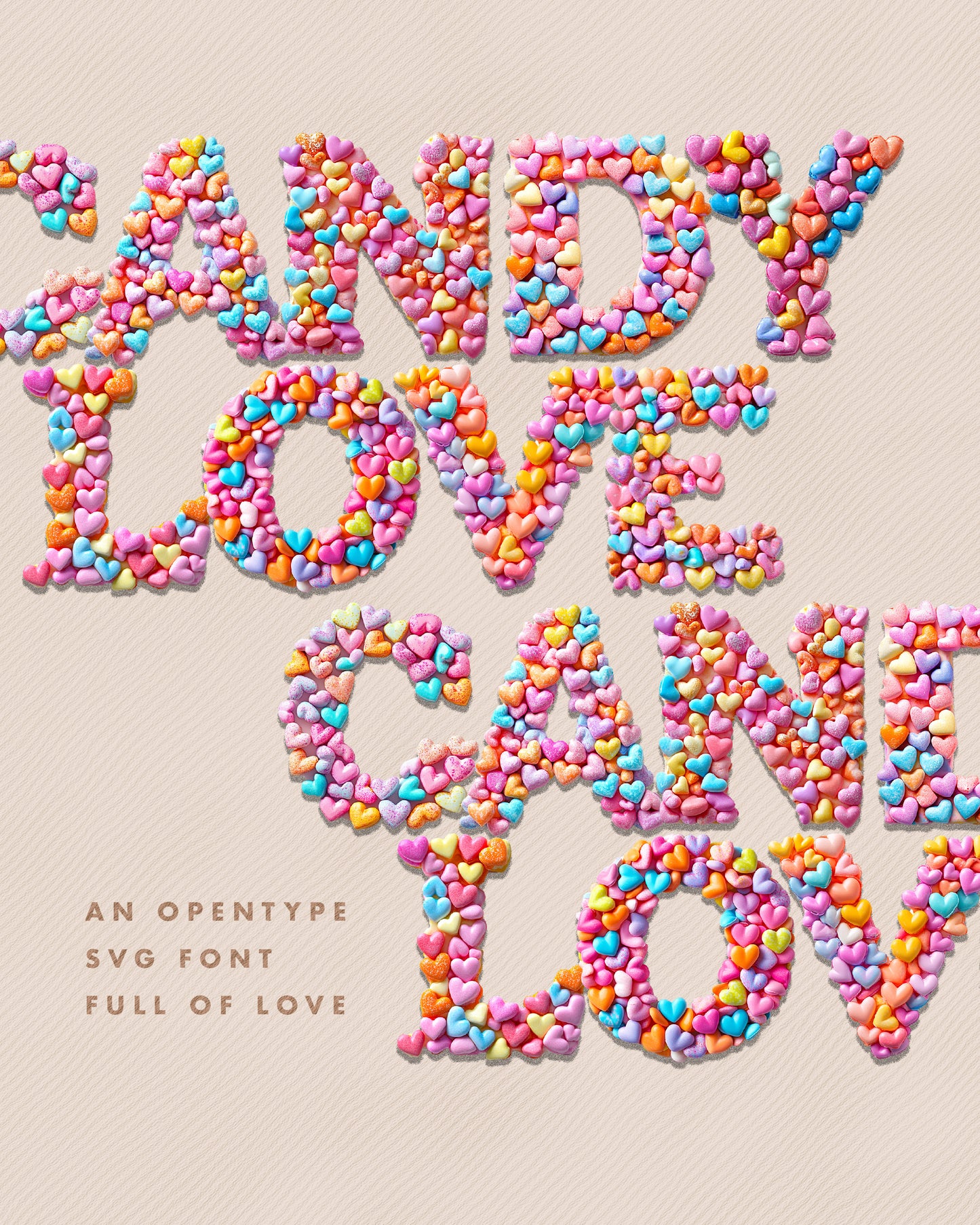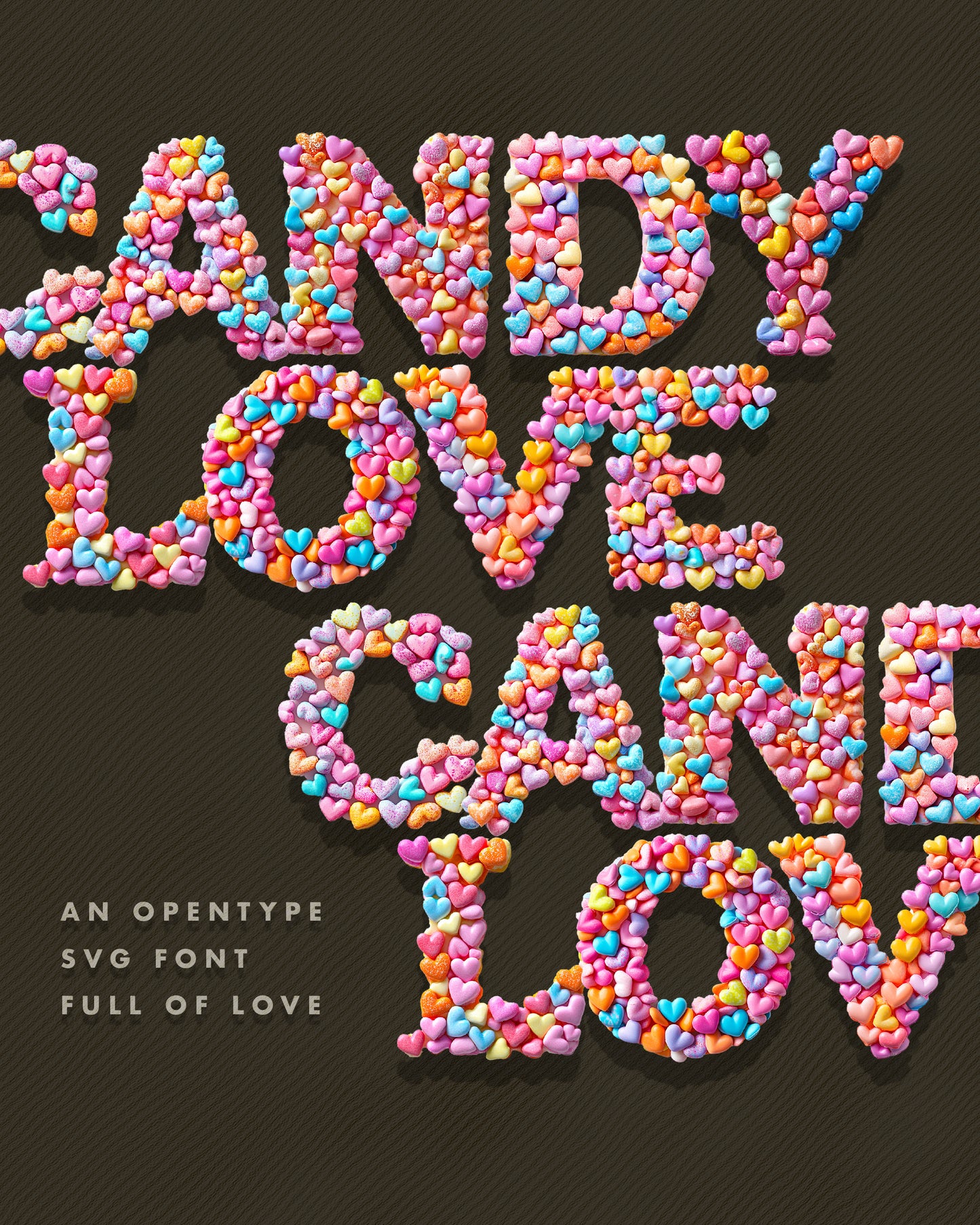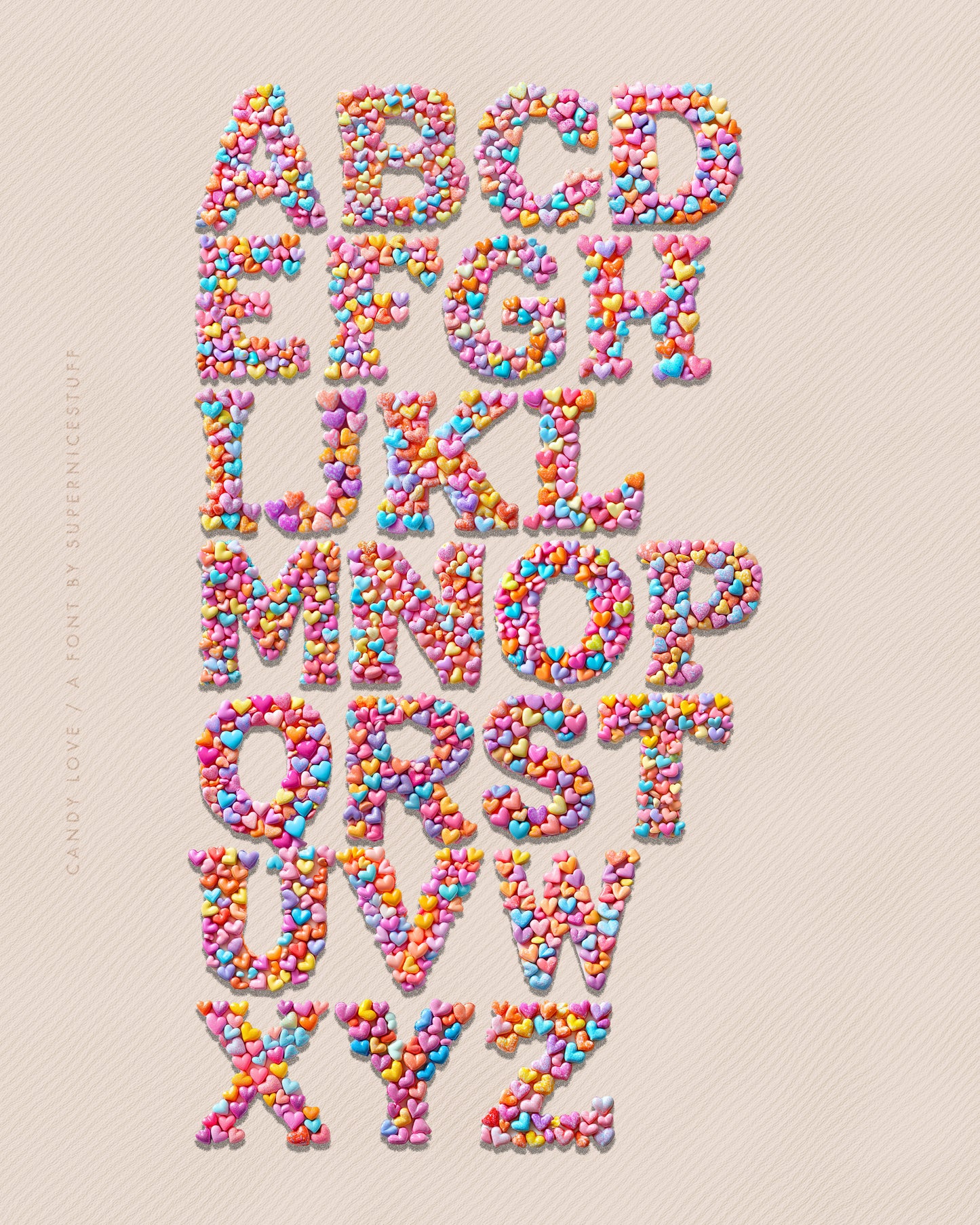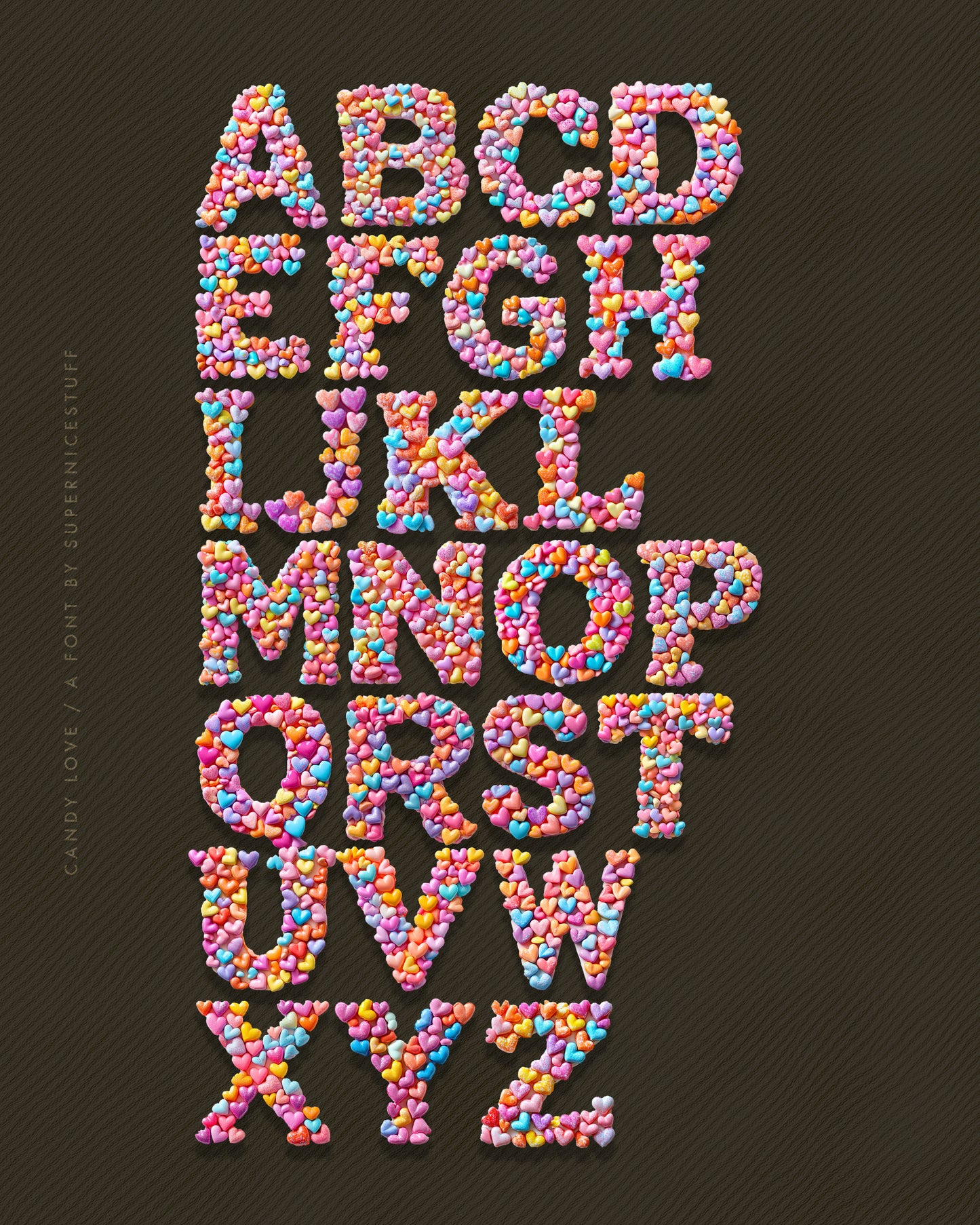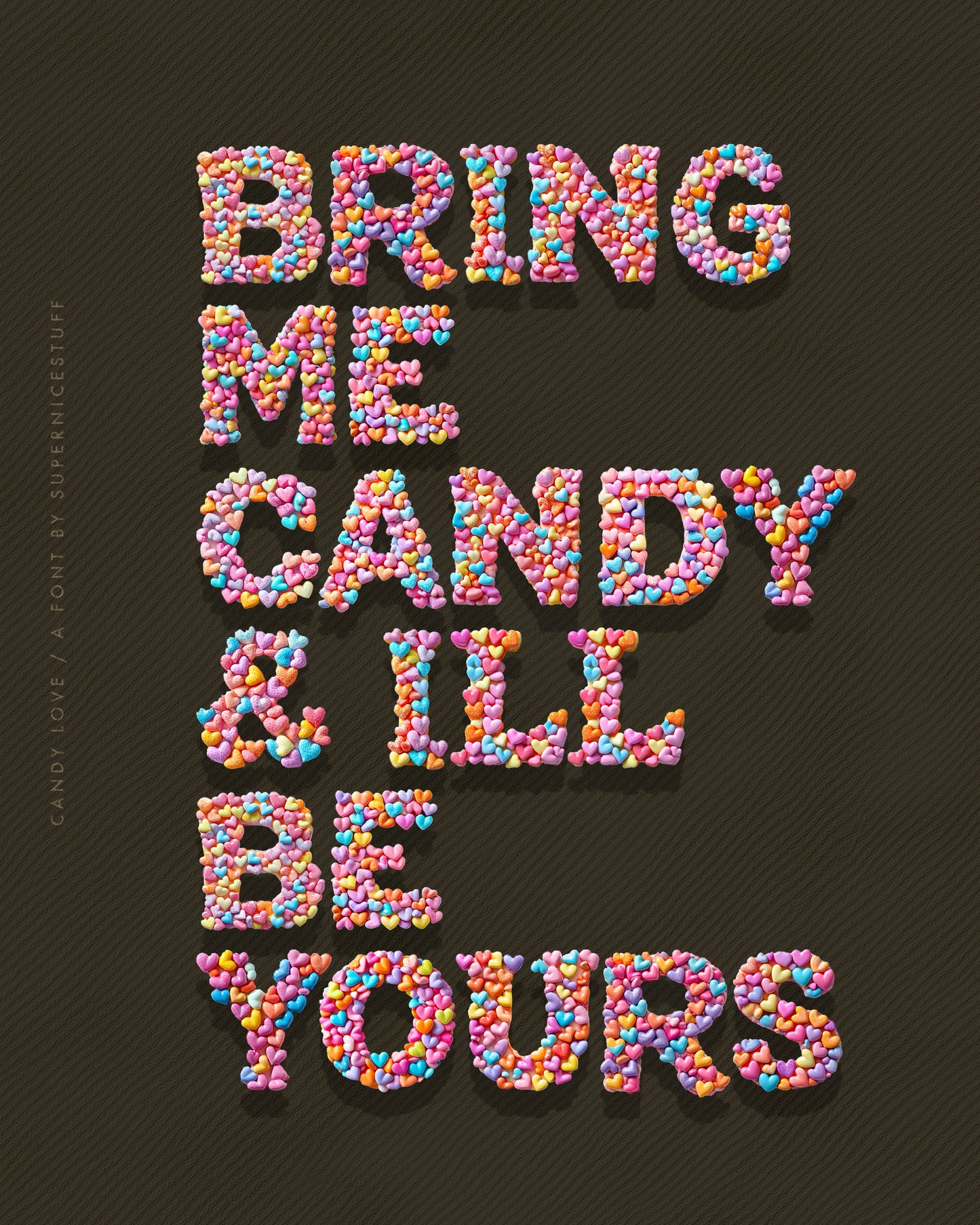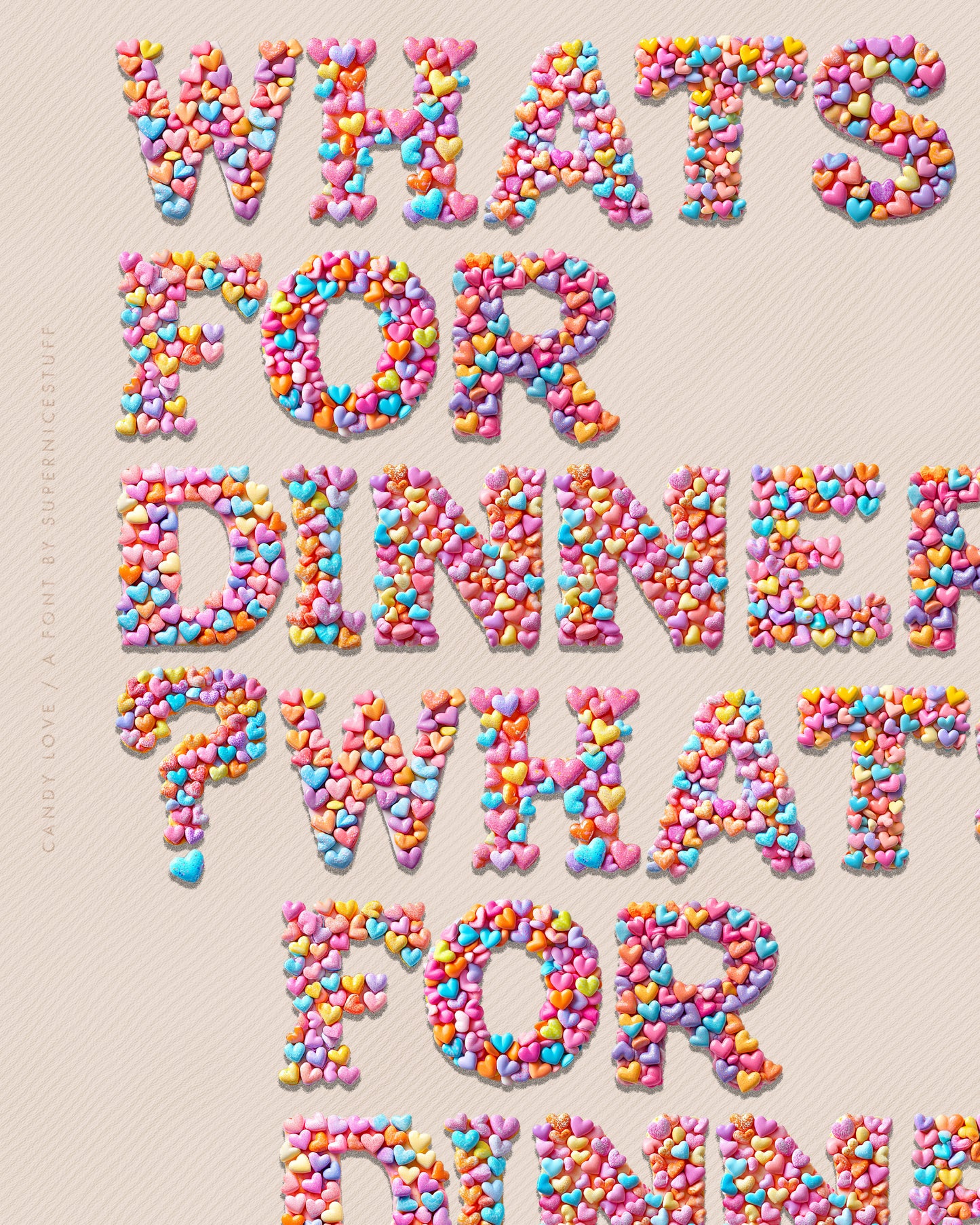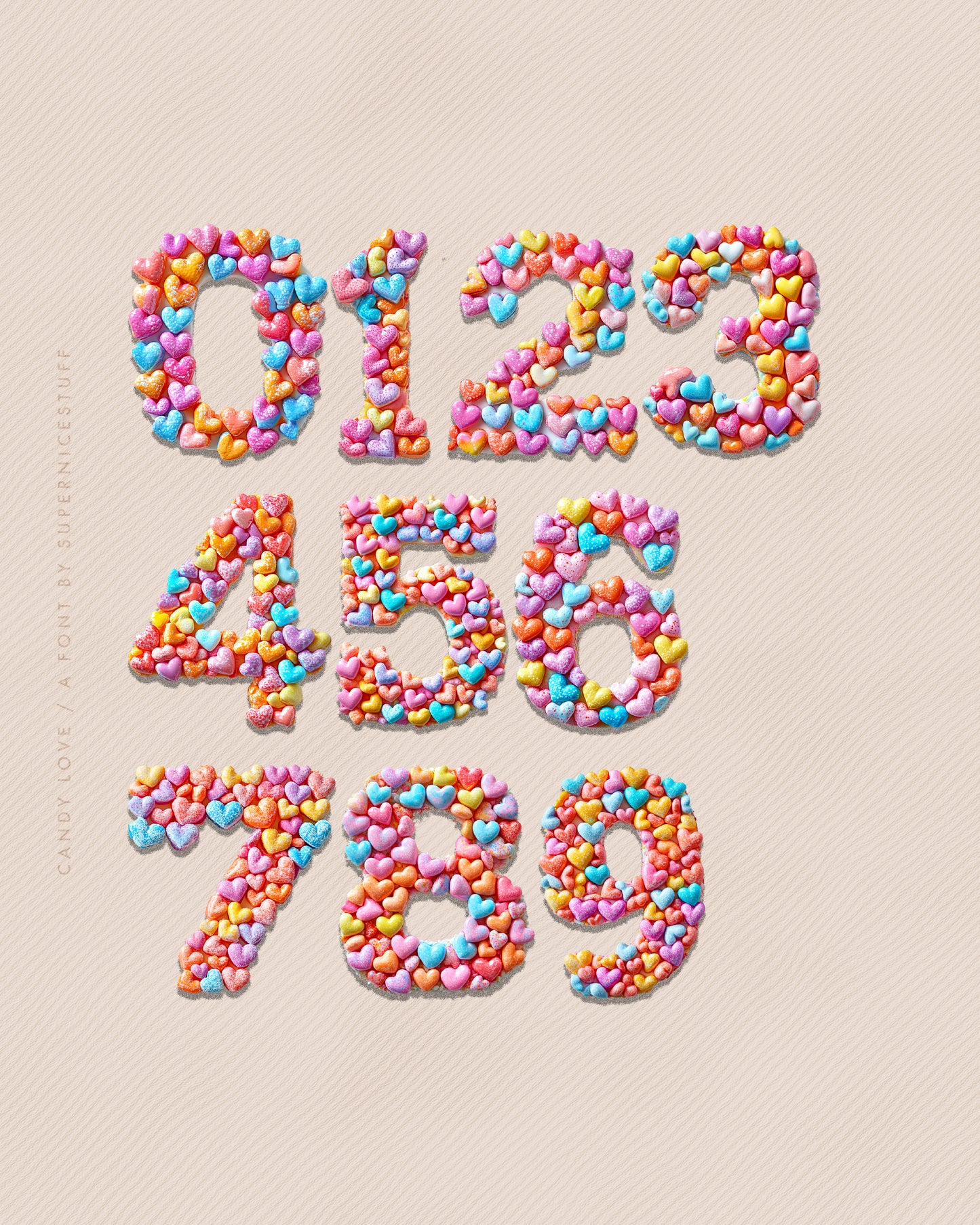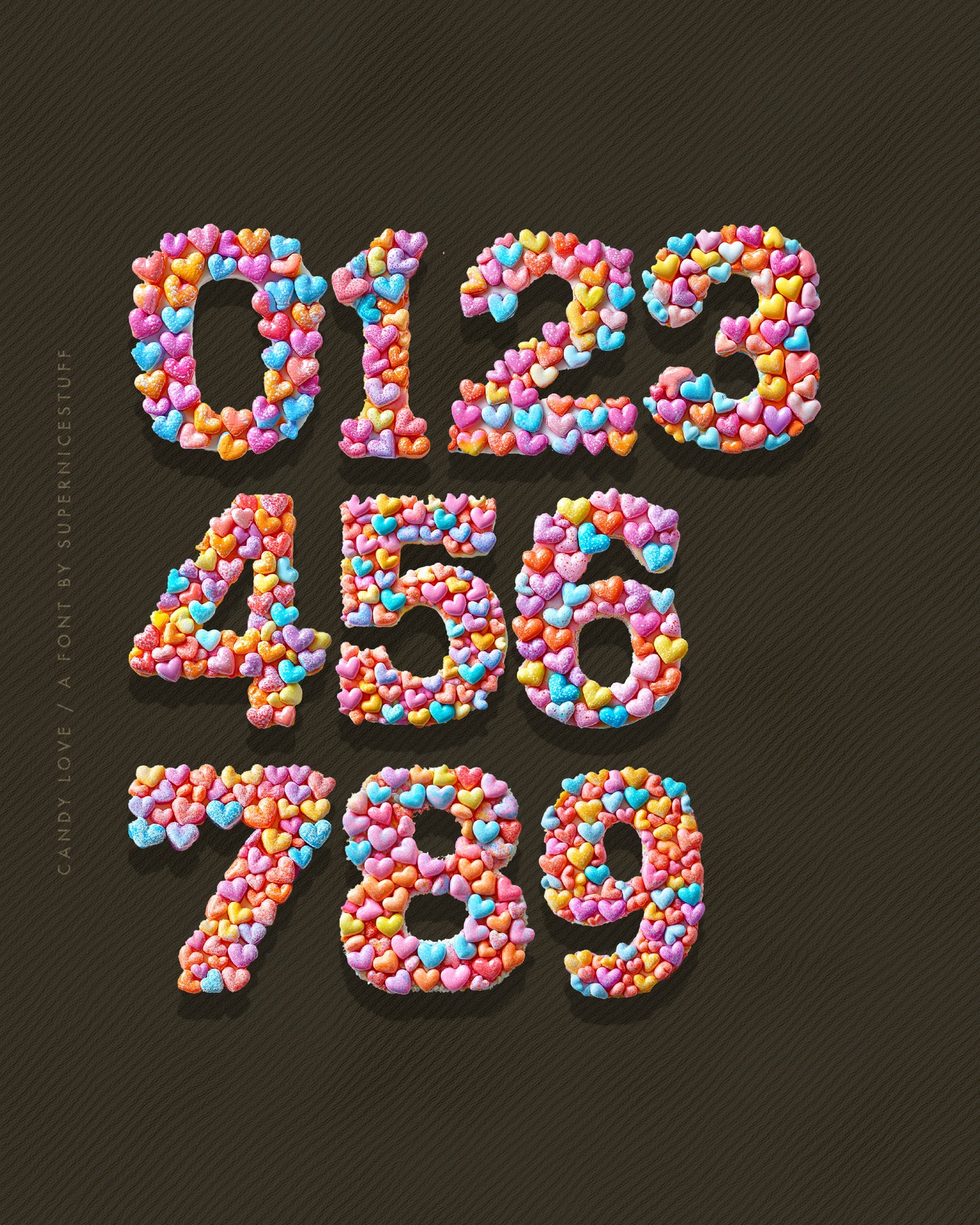
Candy Love ✨ SVG Font
Introducing CANDY LOVE, a hand-painted color font that bursts with vibrant, textured beauty! Each letter is created from rich, multi-layered oil paint strokes, designed to make your headlines, logos, and social media content unforgettable. This font delivers instant creativity with a bold, artistic touch.
- Uppercase Letters
- Numbers
- Basic Punctuation